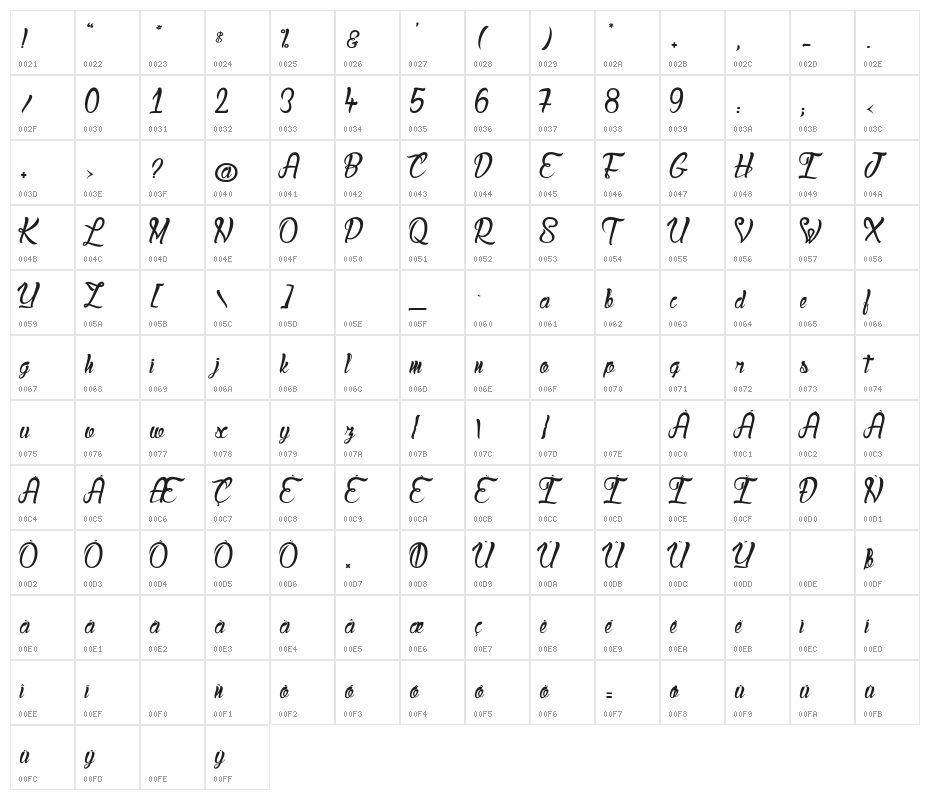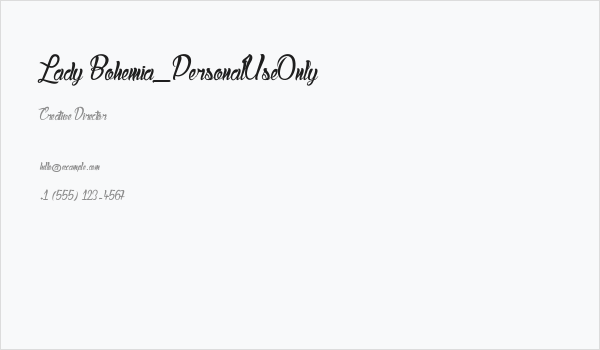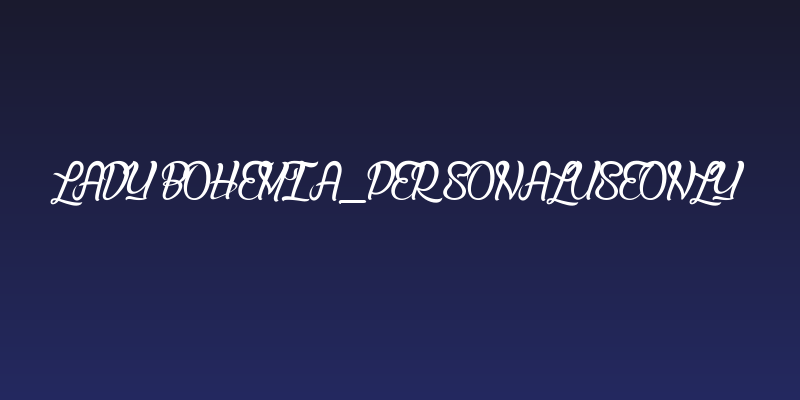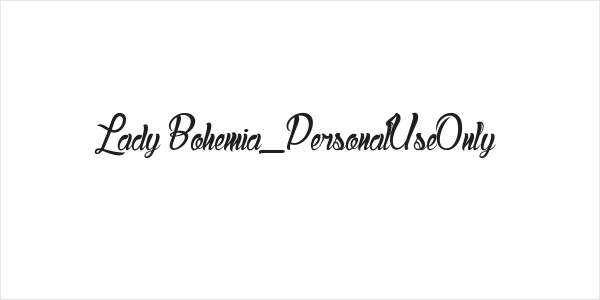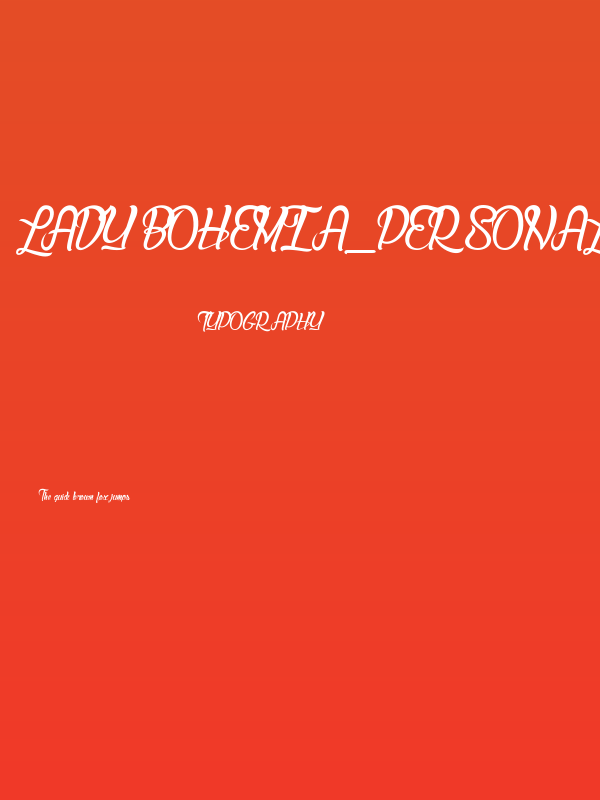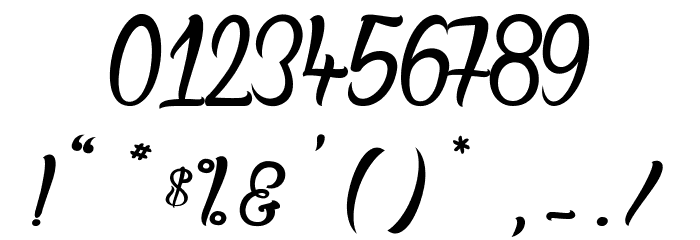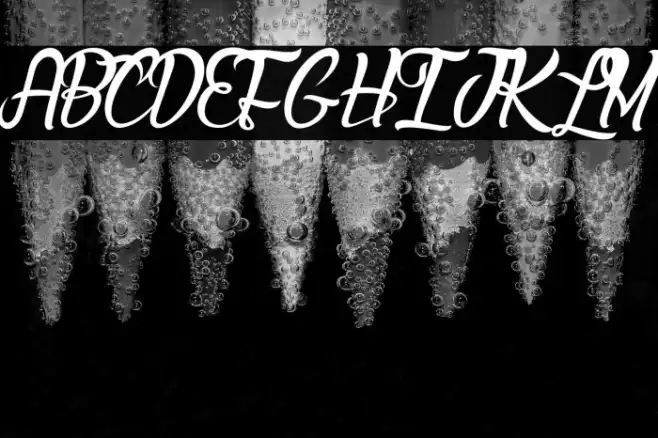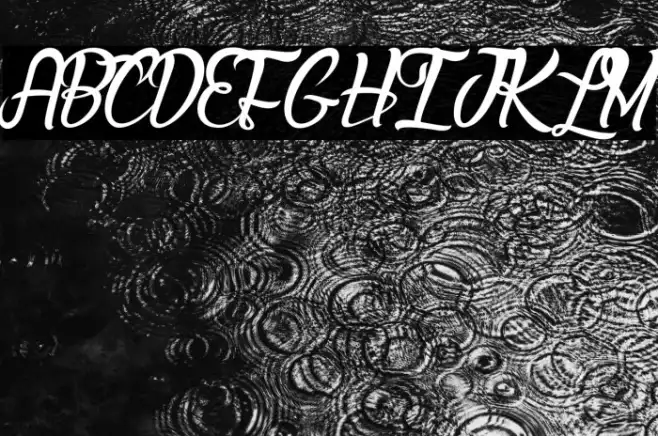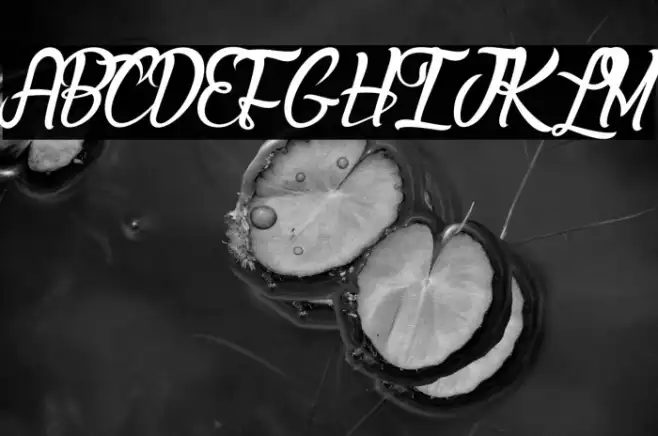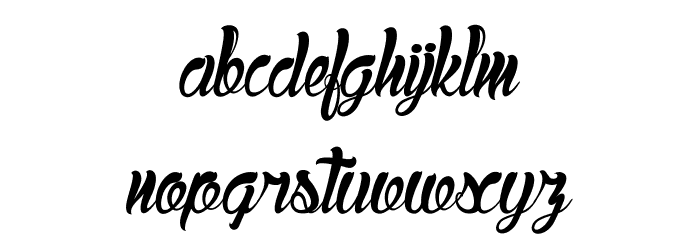
Lady Bohemia_PersonalUseOnly Font
Lady Bohemia_PersonalUseOnly Description
This font features an elegant and flowing script style, characterized by its smooth, connected letters and ornate flourishes. The uppercase letters are particularly elaborate, with sweeping curves and loops that give a sense of movement and grace. The lowercase letters maintain a cohesive flow, enhancing readability while retaining a decorative flair. The numerals are consistent with the overall style, featuring subtle curves and a slightly playful touch. Special characters are thoughtfully designed to match the aesthetic, making this font versatile for various creative applications. The overall impression is one of sophistication and artistic expression, suitable for projects that require a touch of elegance and personality.
| Use Case | Logos, Invitations, Decorative Text |
| Proposed Projects | Ideal for wedding invitations, greeting cards, branding, and any project requiring a sophisticated, artistic touch. |